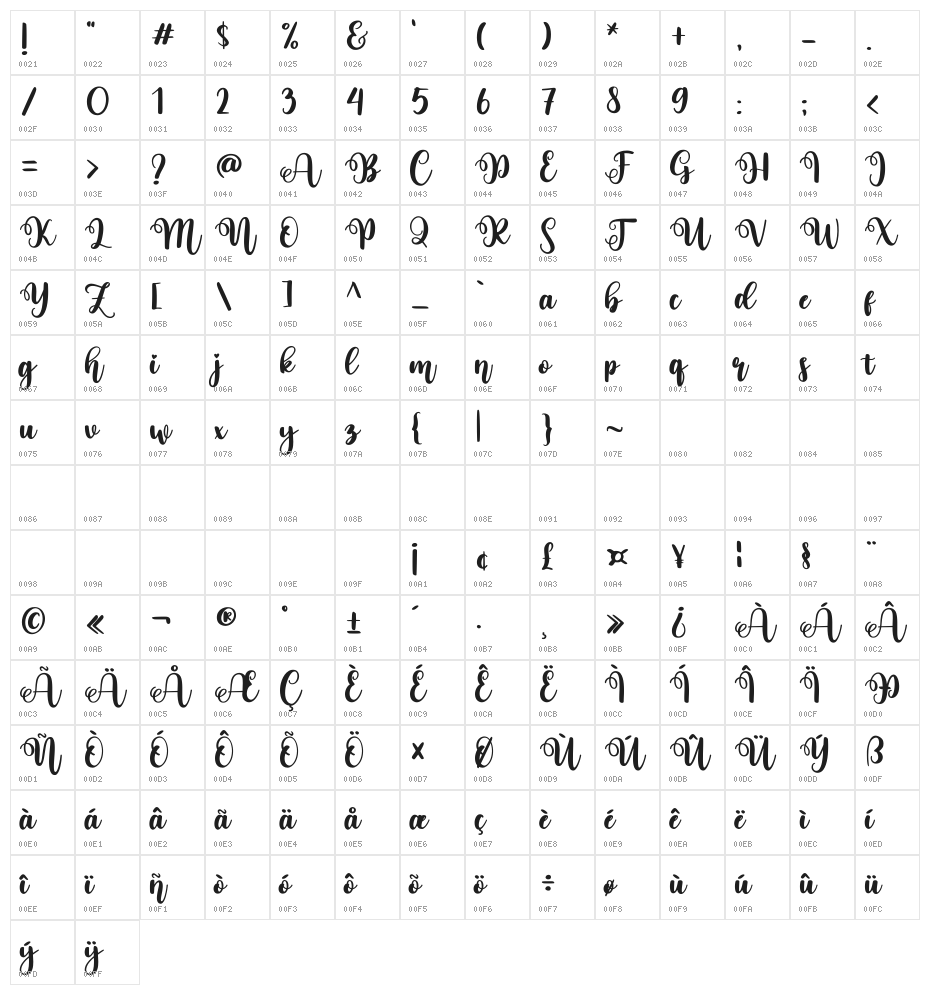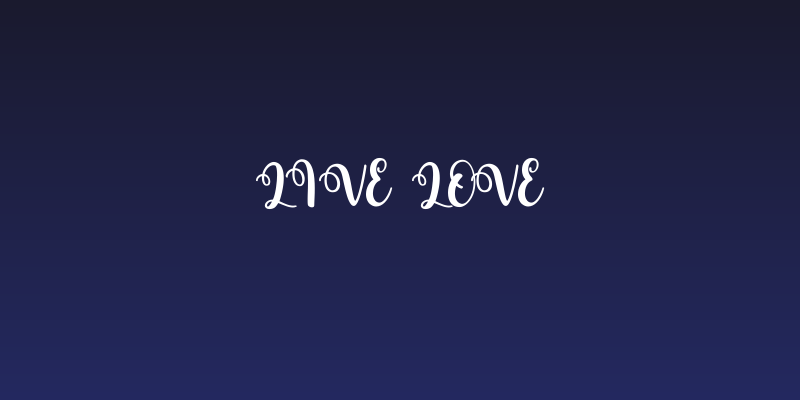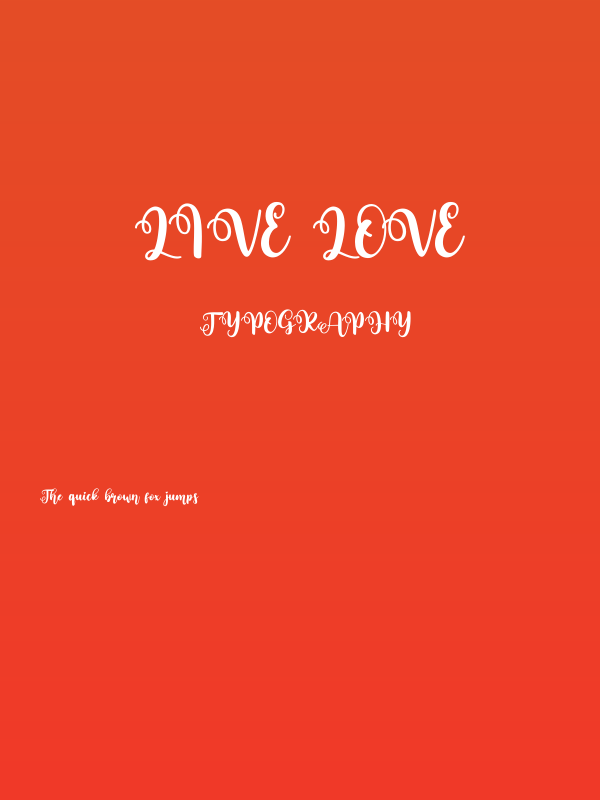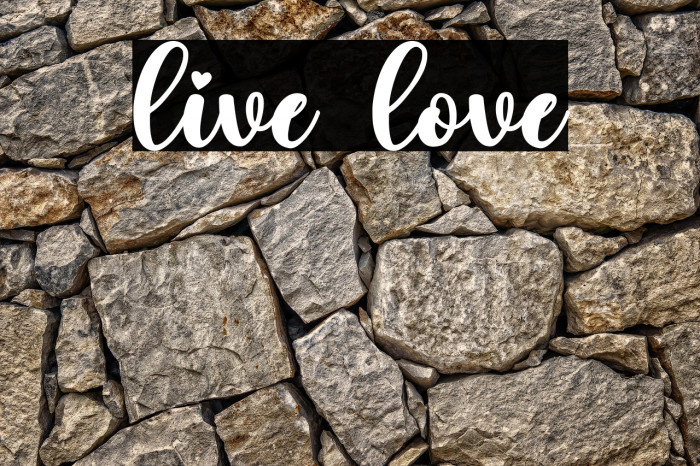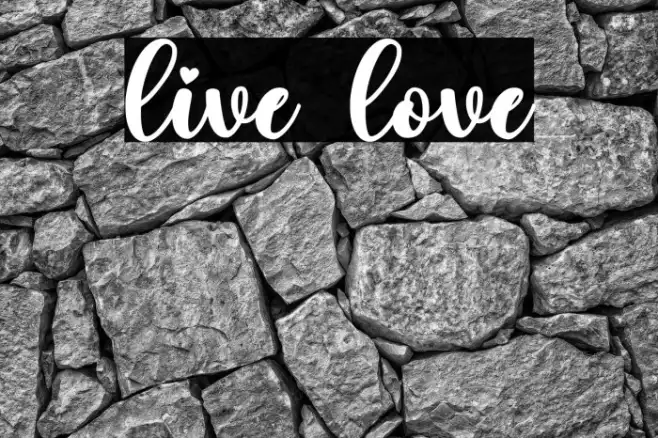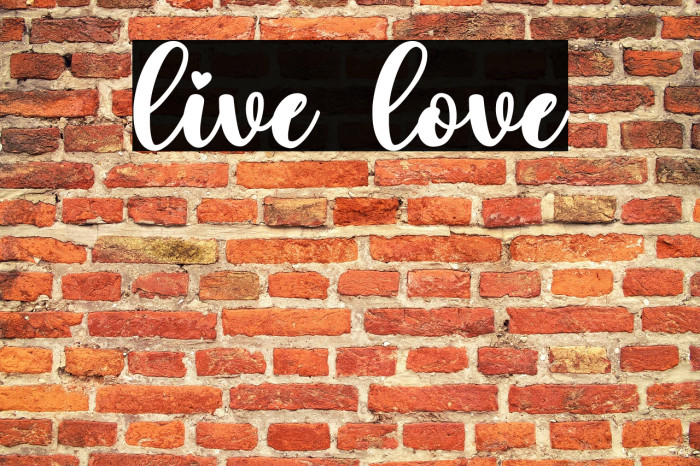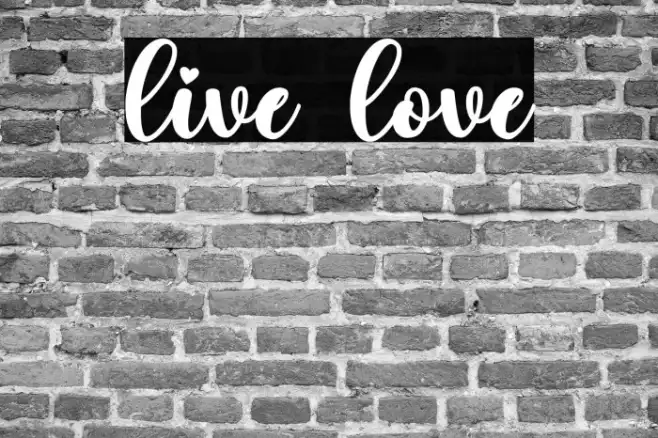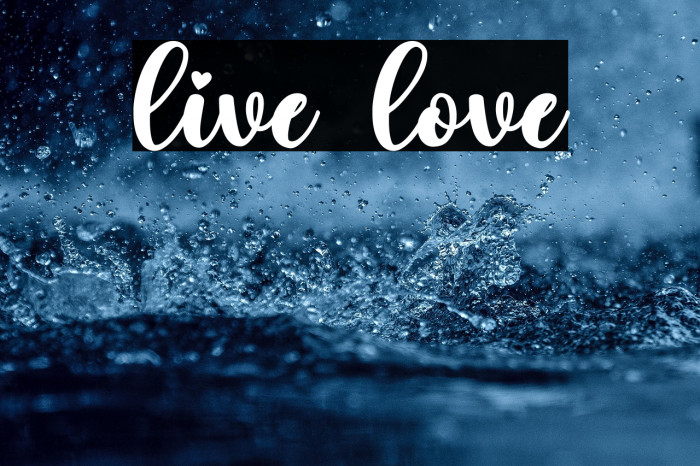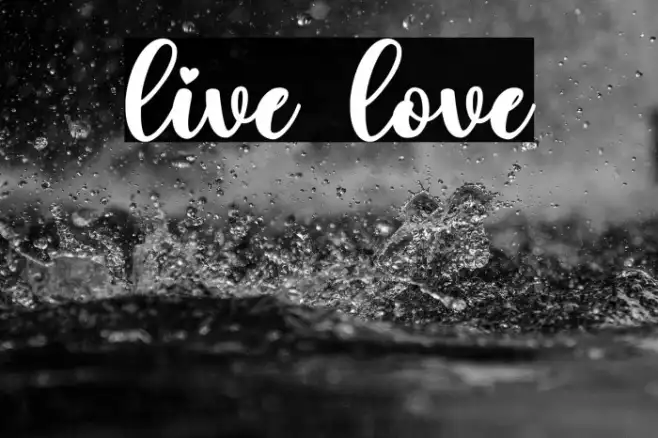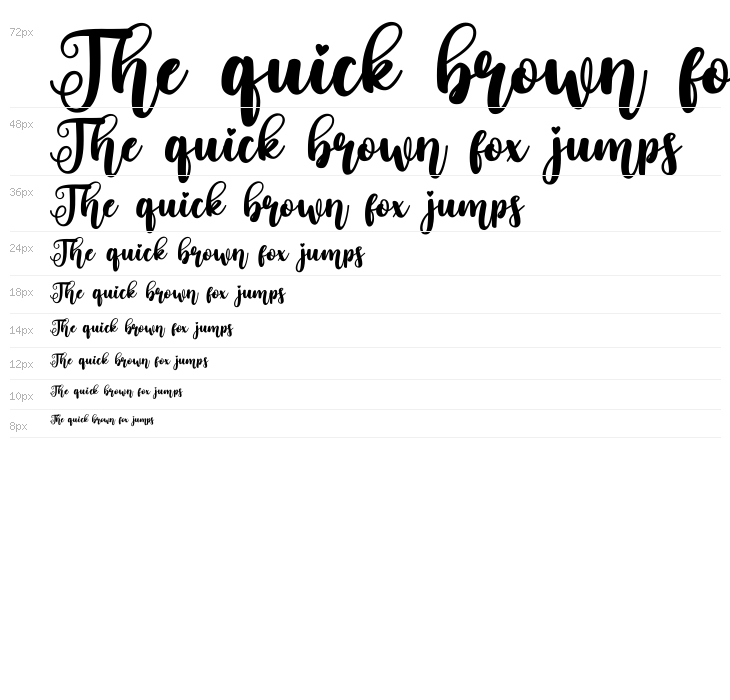
live love Font
live love Description
This font features a lively and dynamic script style, characterized by its flowing, cursive letters that exhibit a playful and elegant flair. The uppercase letters are ornate, with loops and swirls that add a touch of sophistication, while the lowercase letters maintain a consistent, smooth flow. The numerals are bold and clear, complementing the overall aesthetic. Special characters are creatively integrated, maintaining the font's whimsical nature. This font's bold strokes and high contrast make it stand out, perfect for capturing attention.